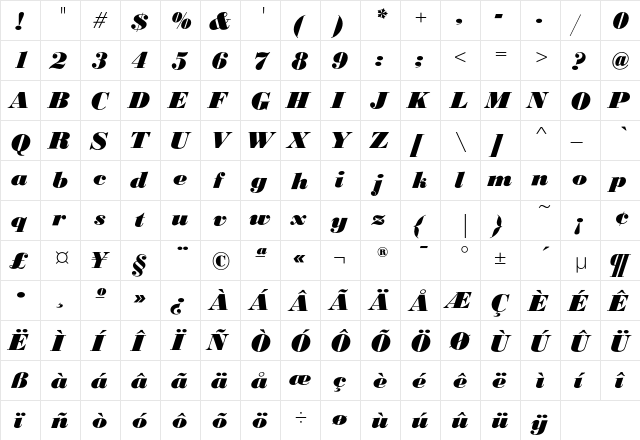
BodoniNo1EF BlackItalic Font Preview
BodoniNo1EF BlackItalic
BodoniNo1EF BlackItalic Font Details
Design Context for BodoniNo1EF Typeface
BodoniNo1EF is a composed and adaptable typeface that performs quietly and consistently across a wide range of design contexts. Its italic angle brings a sense of urgency and motion to the letterforms.
Pro Tip: Use BodoniNo1EF for emphasis, pull quotes, and subheadings where its slanted energy can add rhythm to the layout.